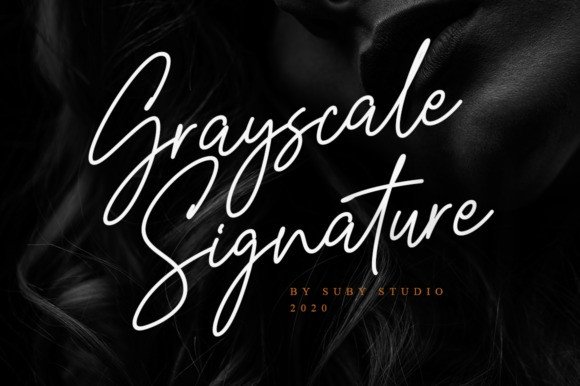
Grayscale Signature Font
Proudly present a new product called Grayscale Font, this font made by handwritten basic.
Every stroke and shape create with natural handwriting so that the elegant feel is more pronounced and prominent.
Grayscale Font is perfect for your next design project.